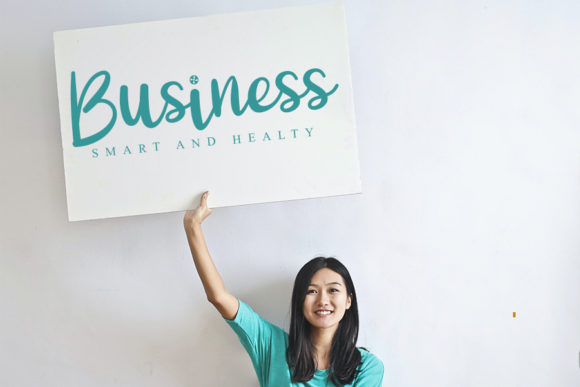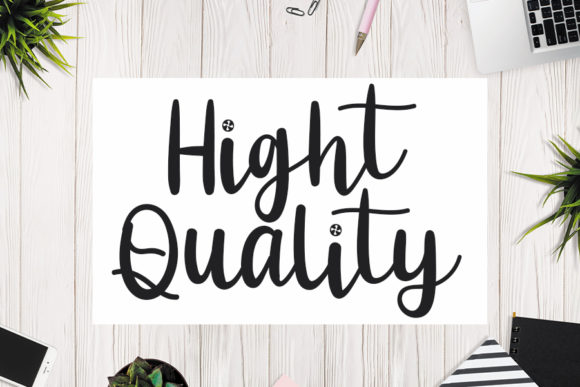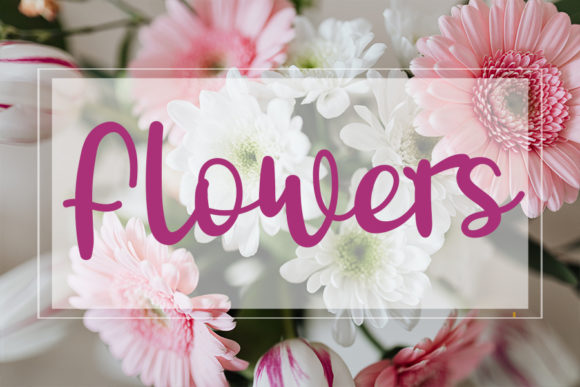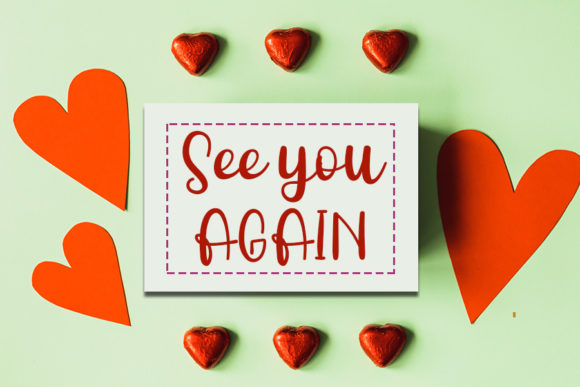
Baby Boy Font: A Sweet and Cursive Handwritten Font for Your Design Projects
Are you looking for a font that can add a touch of sweetness and romance to your design projects? Look no further than the Baby Boy font! This beautiful, cursive handwritten font is perfect for a variety of design ideas, from baby shower invitations to wedding stationery, and everything in between.
What Makes Baby Boy Font So Special?
The Baby Boy font is a unique and charming font that is sure to capture the hearts of designers and crafters alike. Its gentle, cursive script and sweet letterforms make it perfect for creating beautiful and feminine designs. Whether you’re creating a logo, a poster, or a social media graphic, this font is sure to add a touch of elegance and sophistication.
Features of Baby Boy Font
- Sweet and Cursive Handwritten Font: The Baby Boy font is a beautiful, cursive handwritten font that is perfect for creating sweet and feminine designs.
- Versatile: This font is perfect for a variety of design ideas, from baby shower invitations to wedding stationery, and everything in between.
- Easy to Read: The Baby Boy font is easy to read, making it perfect for body text and headlines.
- Scalable: This font is scalable, making it perfect for use on a variety of platforms, from social media graphics to large format prints.
Design Ideas Using Baby Boy Font
The Baby Boy font is perfect for a variety of design ideas, including:
- Baby Shower Invitations: Create beautiful and feminine baby shower invitations that will set the tone for a sweet and memorable celebration.
- Wedding Stationery: Add a touch of romance and elegance to your wedding stationery, including invitations, save the dates, and thank you cards.
- Social Media Graphics: Create beautiful and eye-catching social media graphics that will help you stand out from the crowd.
- Logos and Branding: Use the Baby Boy font to create a beautiful and feminine logo that will help you establish your brand identity.
Tips for Using Baby Boy Font
Here are a few tips for using the Baby Boy font in your design projects:
- Pair with Other Fonts: Pair the Baby Boy font with other fonts to create a unique and interesting contrast.
- Use on Light Backgrounds: Use the Baby Boy font on light backgrounds to create a beautiful and feminine look.
- Experiment with Colors: Experiment with different colors to find the perfect combination that works with your design.
The Baby Boy font is a beautiful and versatile font that is perfect for a variety of design projects. Its sweet and cursive handwritten script makes it perfect for creating feminine and elegant designs. Whether you’re a designer or a crafter, this font is sure to become a favorite in your collection.